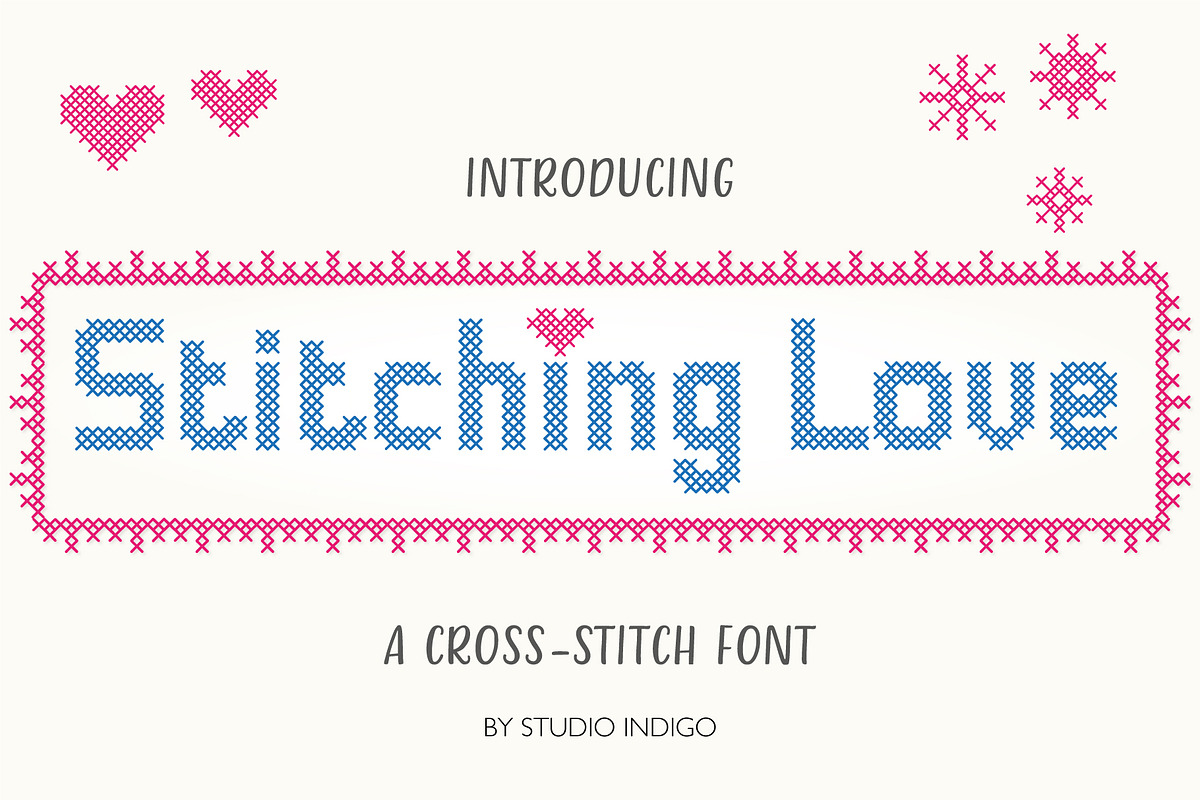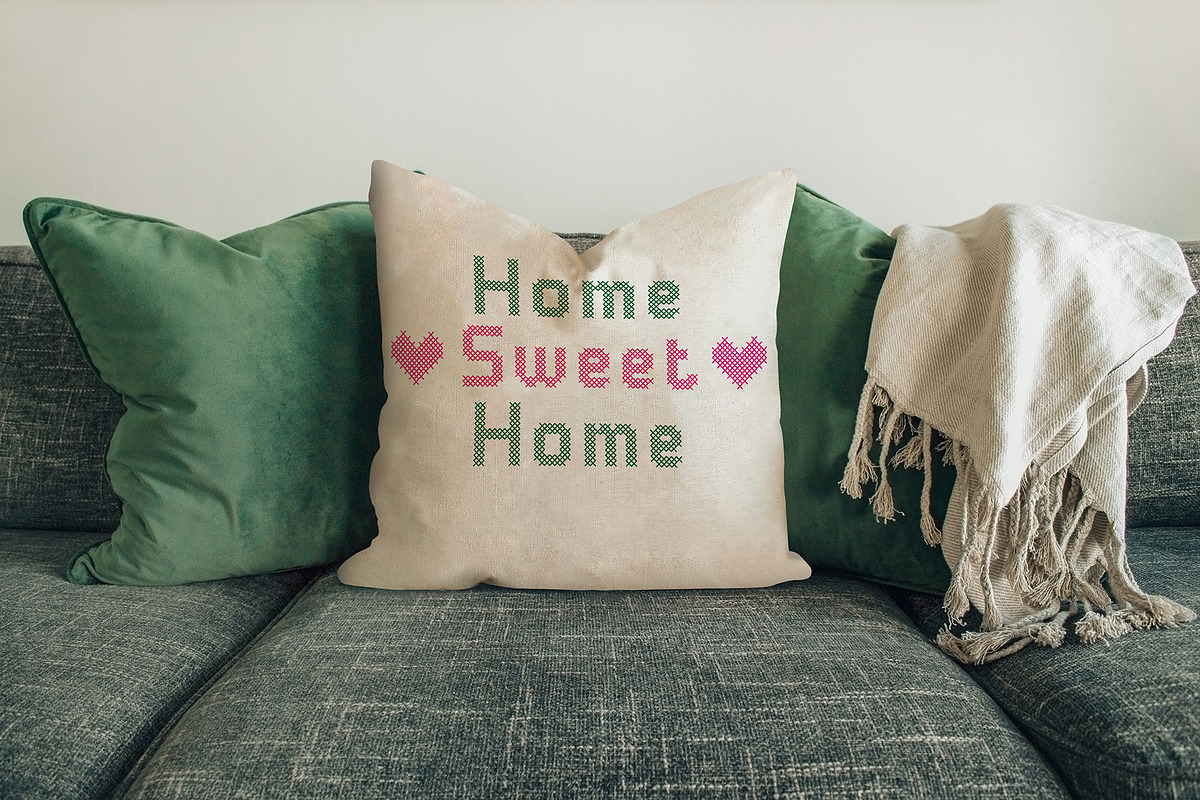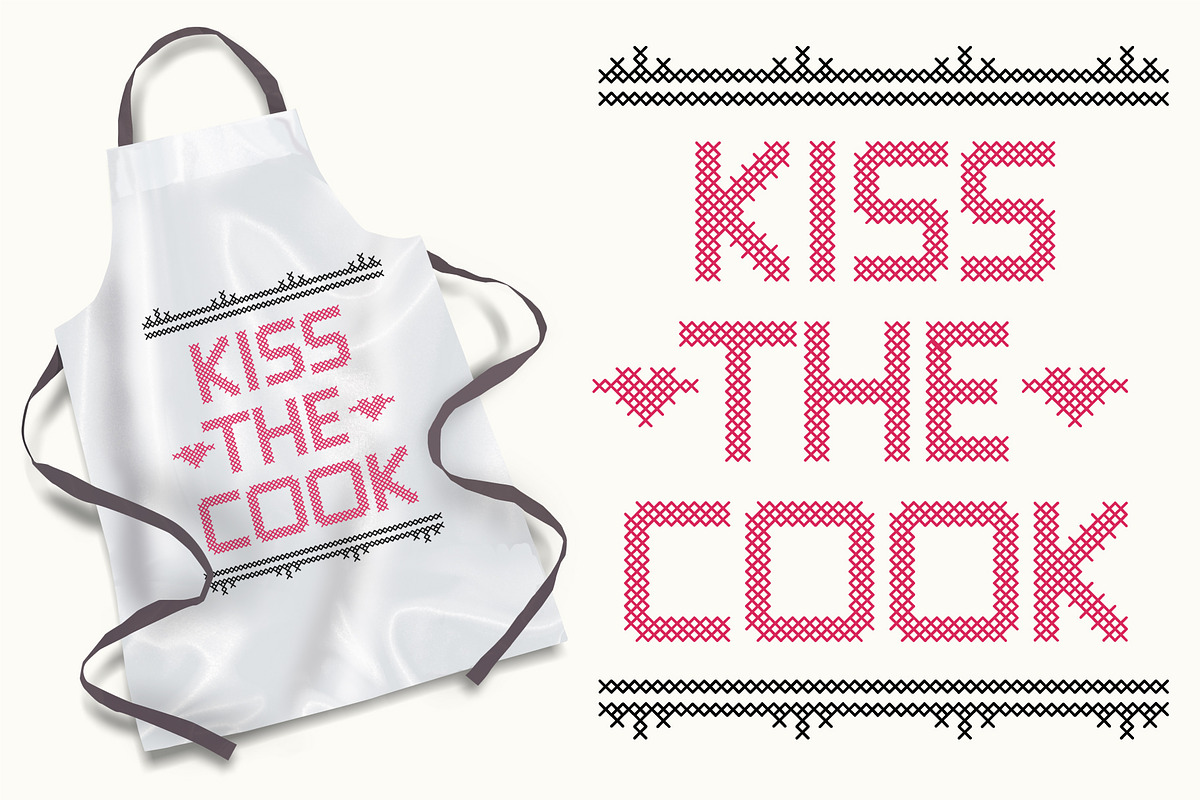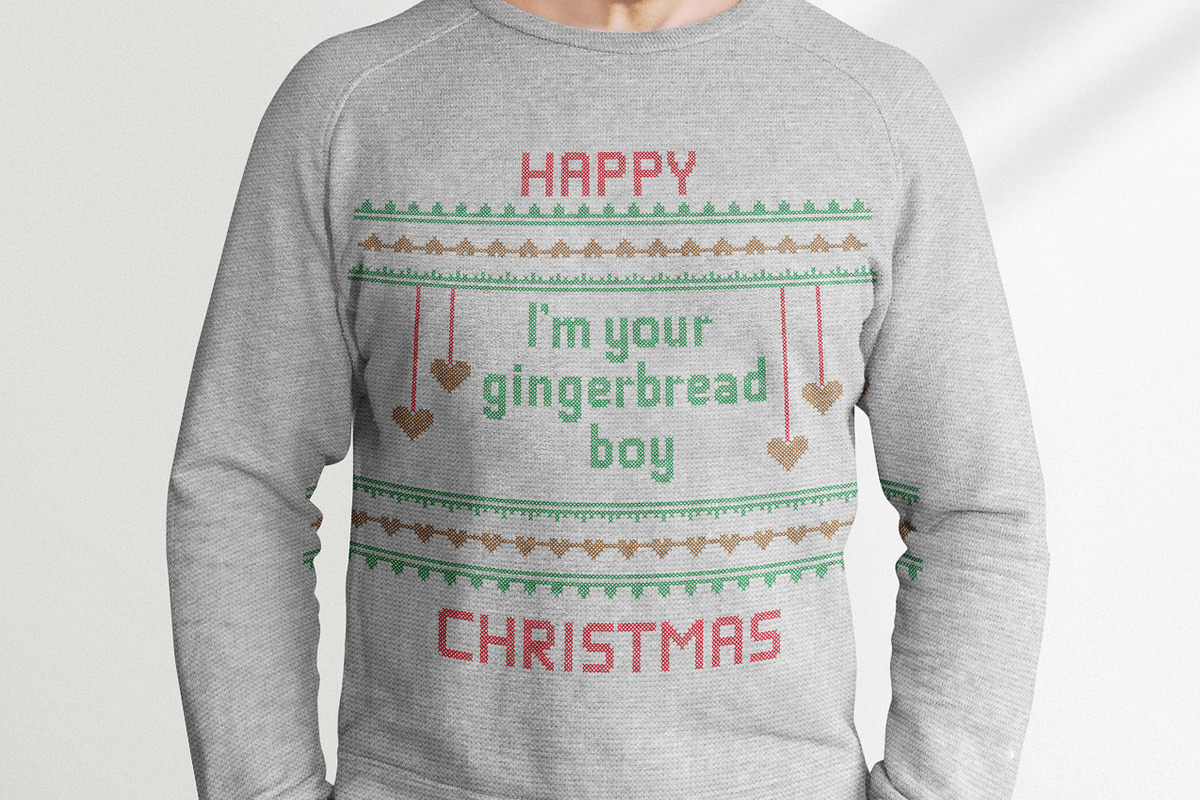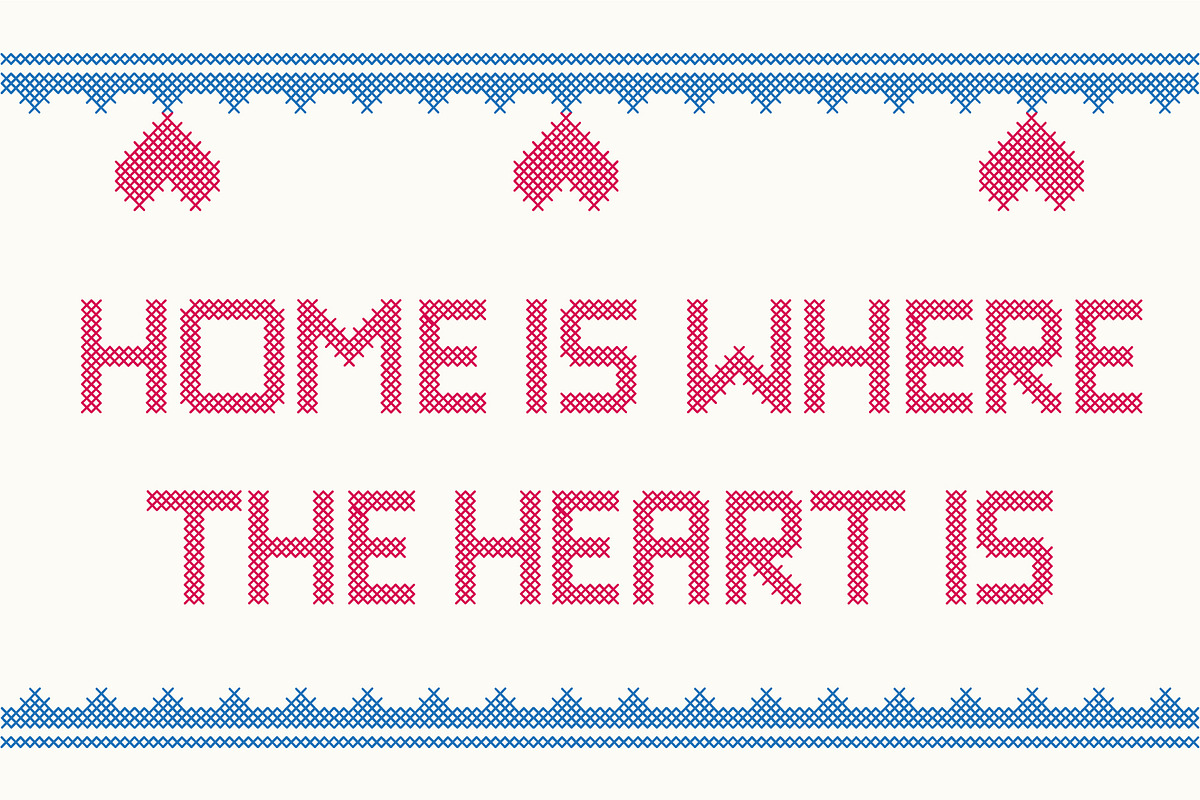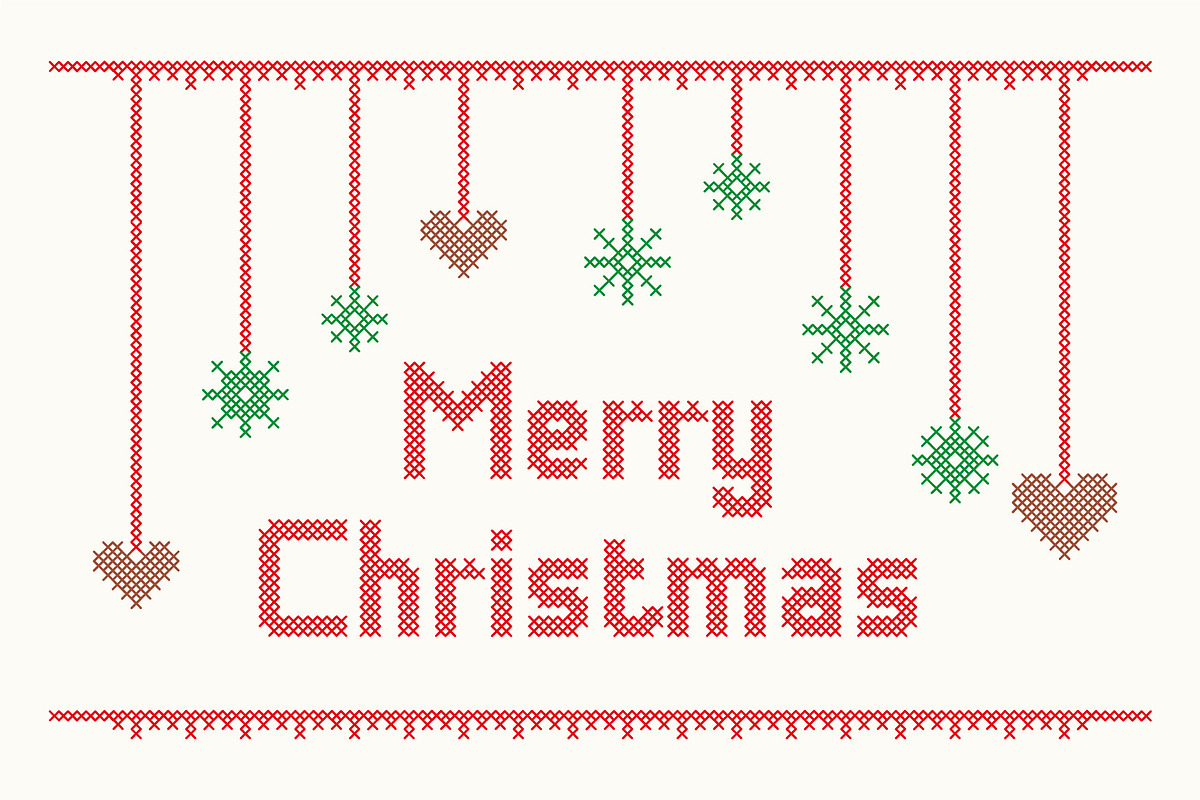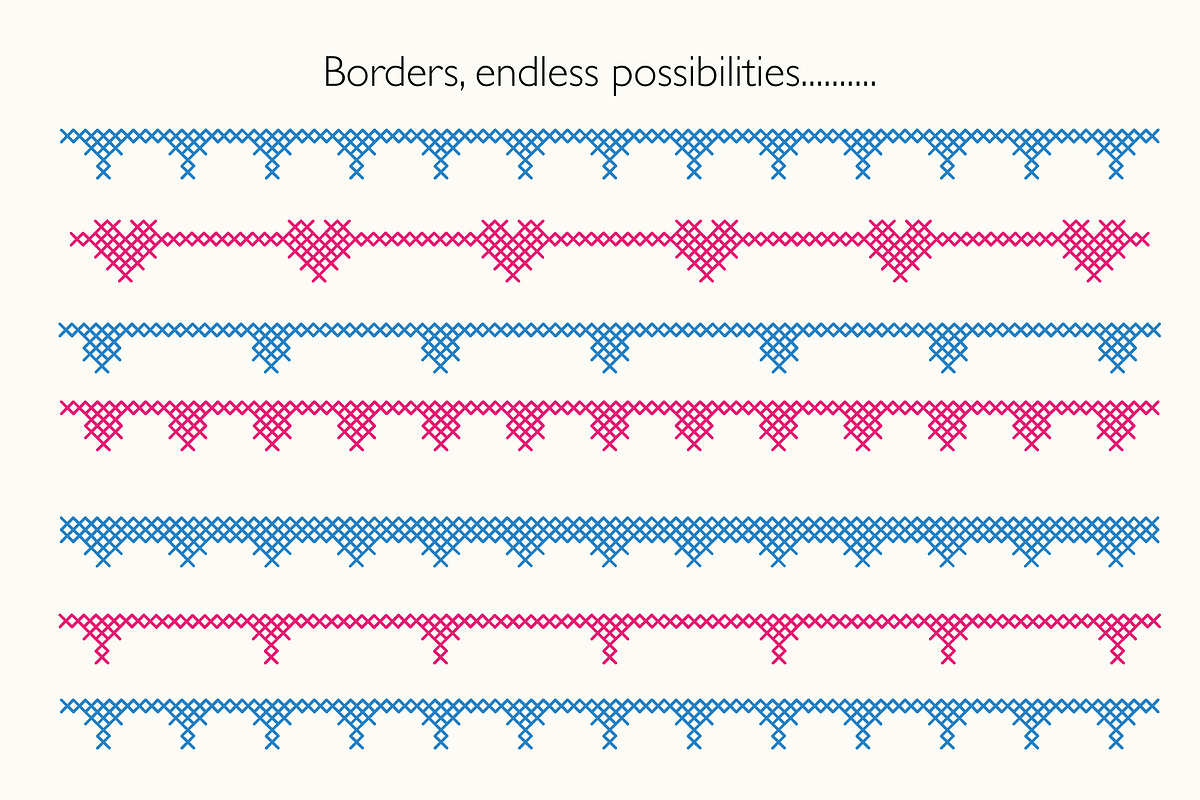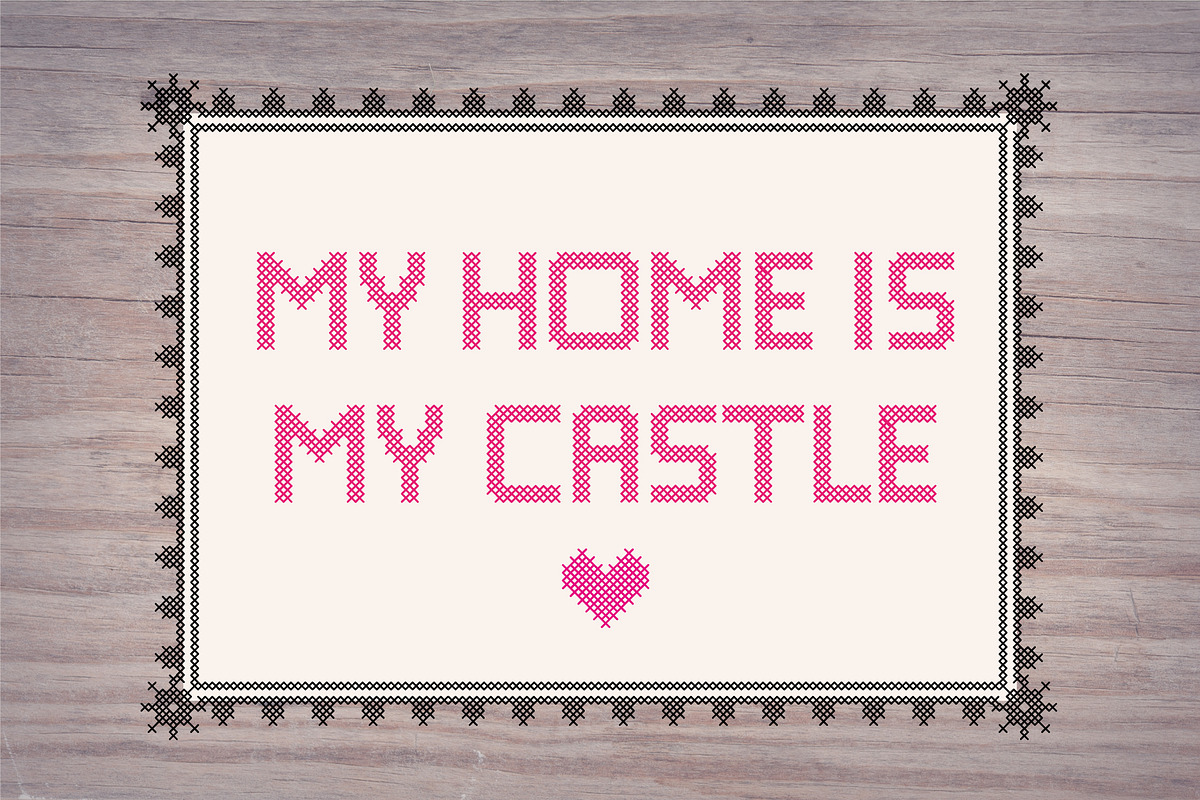
Stitching Love a cross-stitch font
Stitching Love is the perfect cross-stitch embroidery font for your crafty design projects. It is made of sans serif letters and comes with a number of decorative ornaments and border element that you can combine in many different ways. Suitable for christmas, crafting, scrapbooking, embroidery, invitations etc.